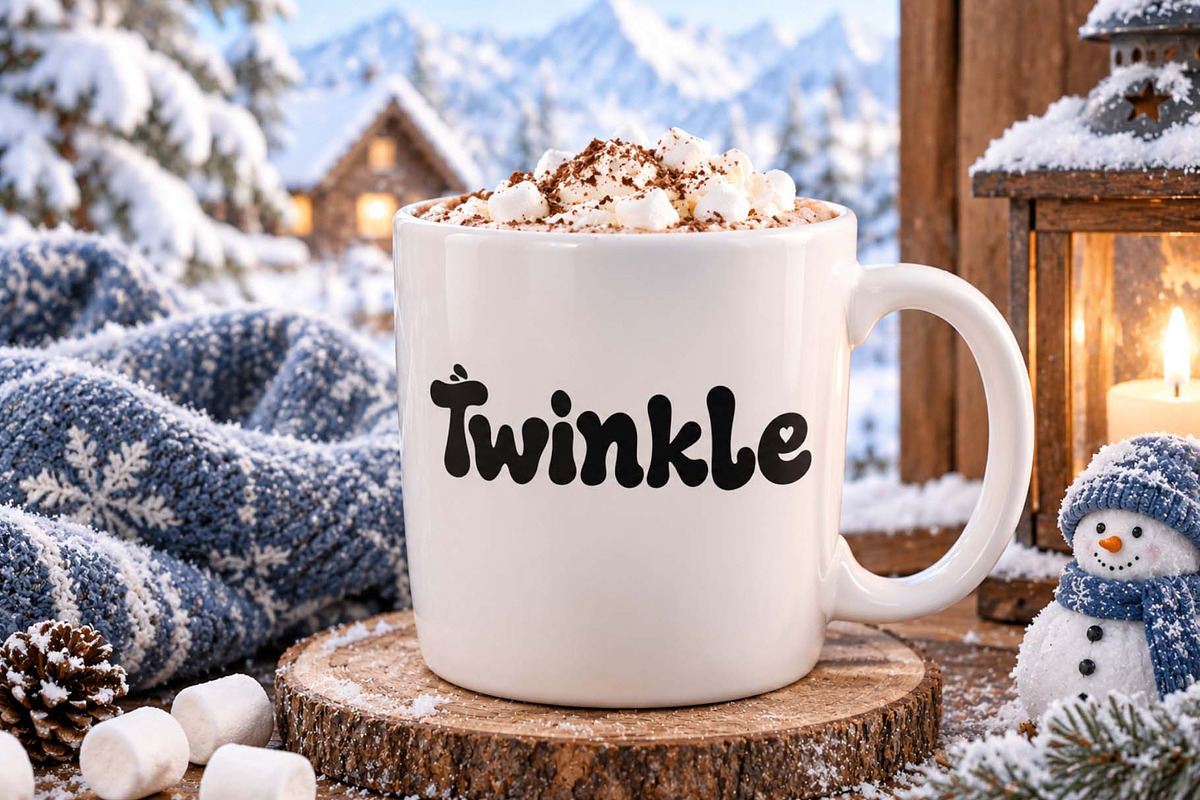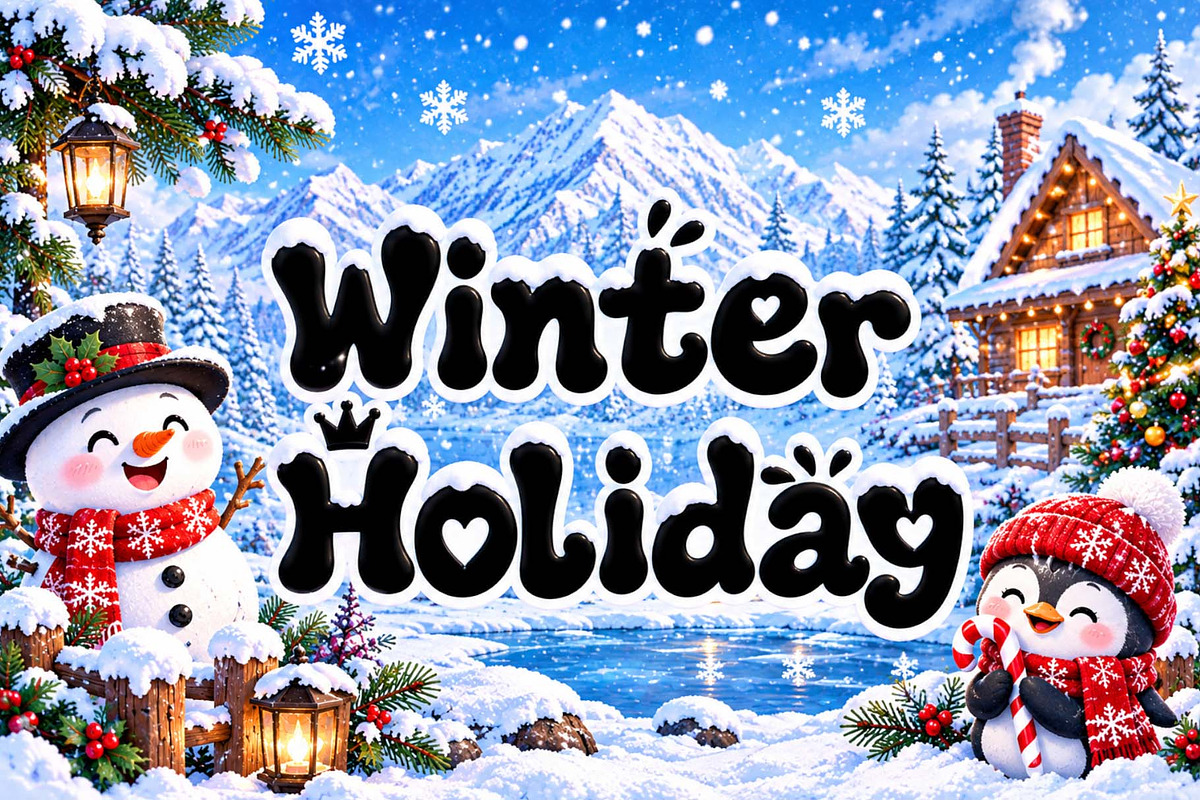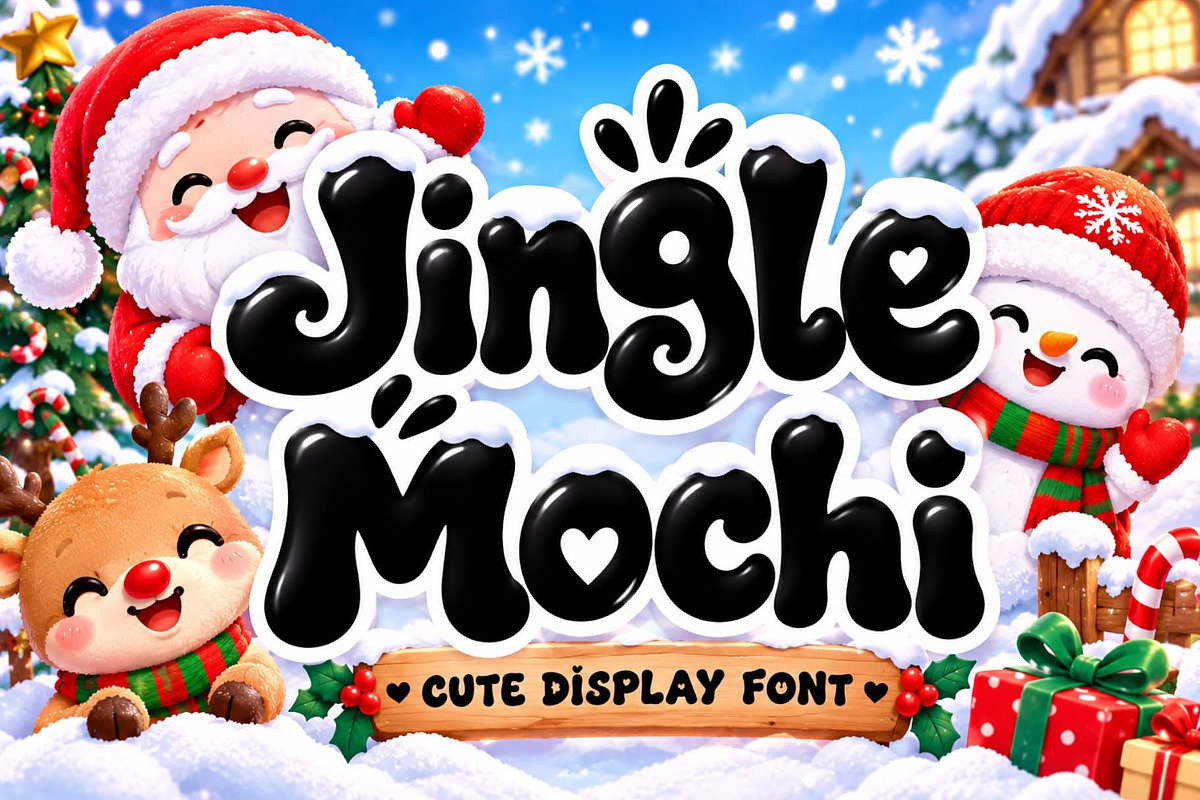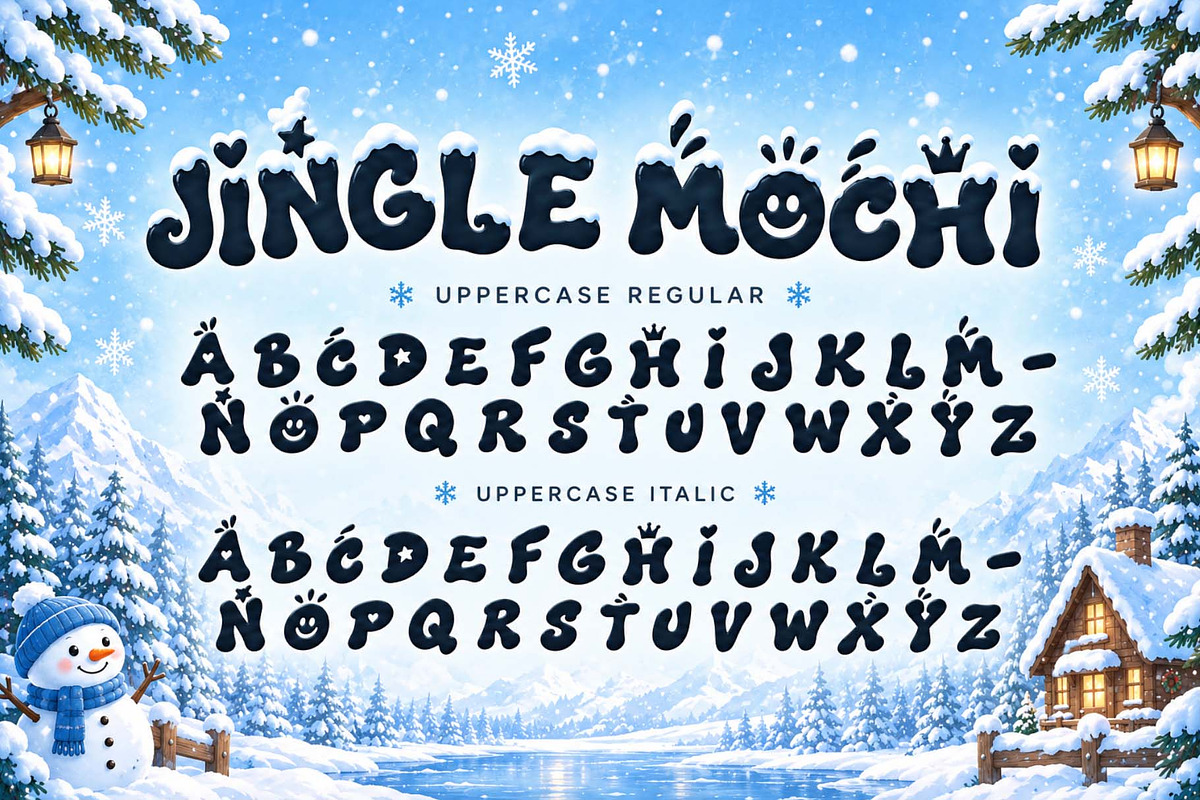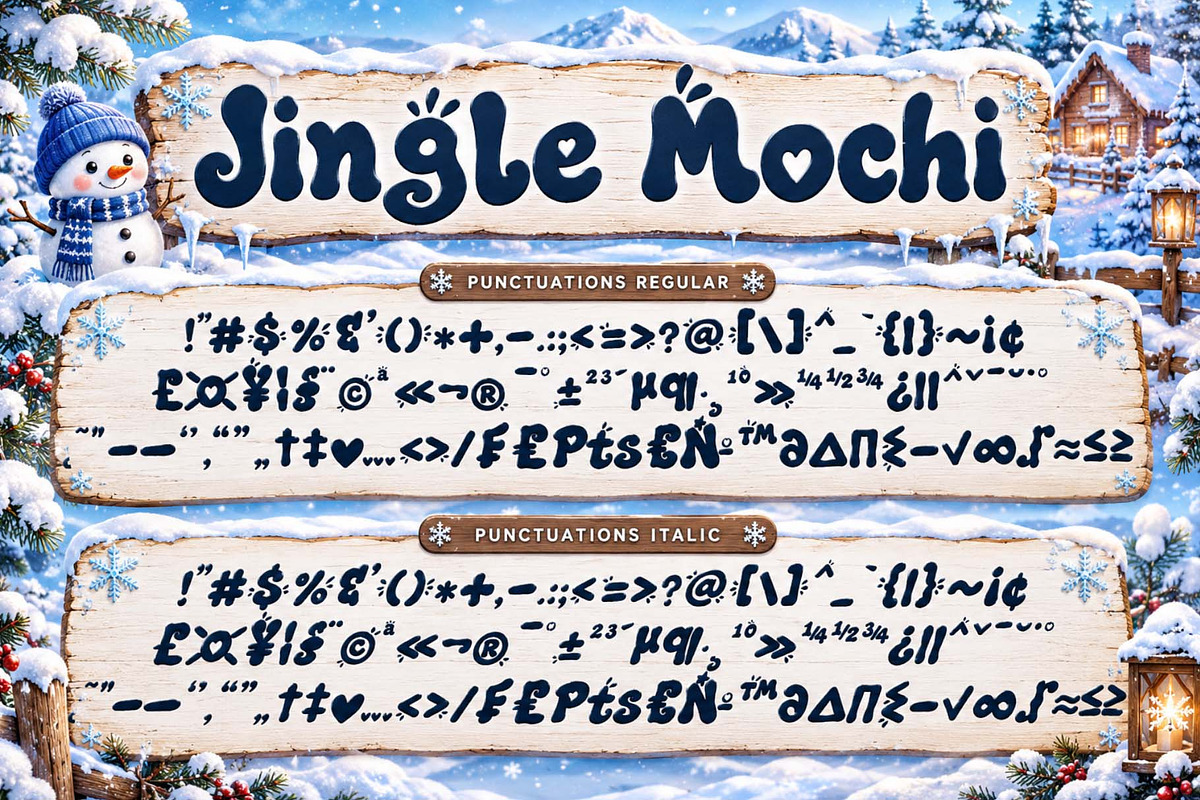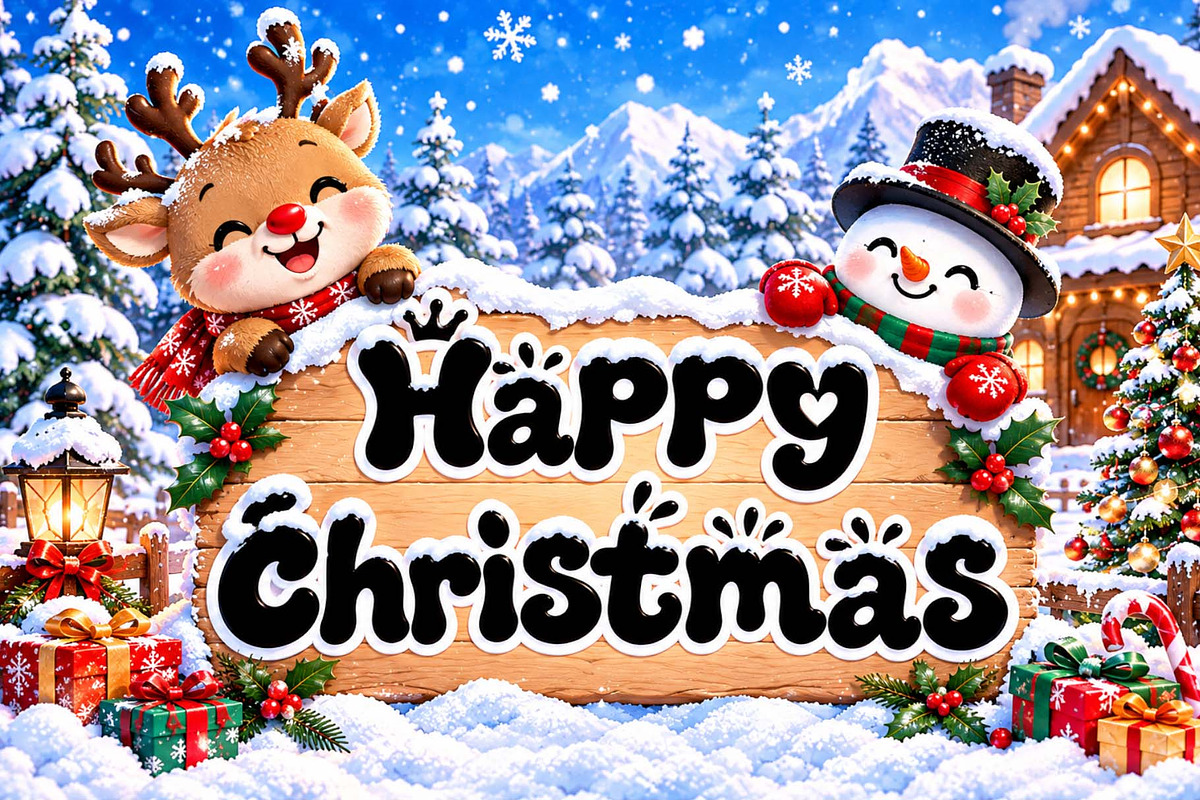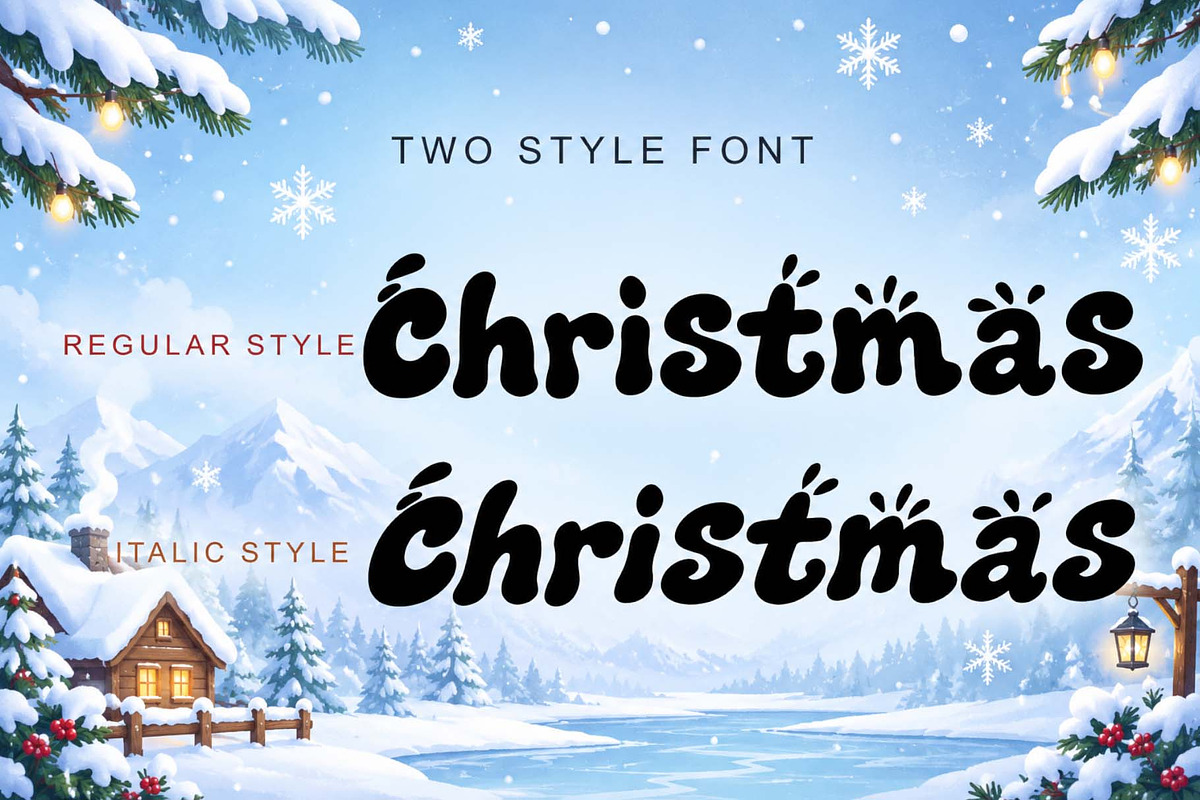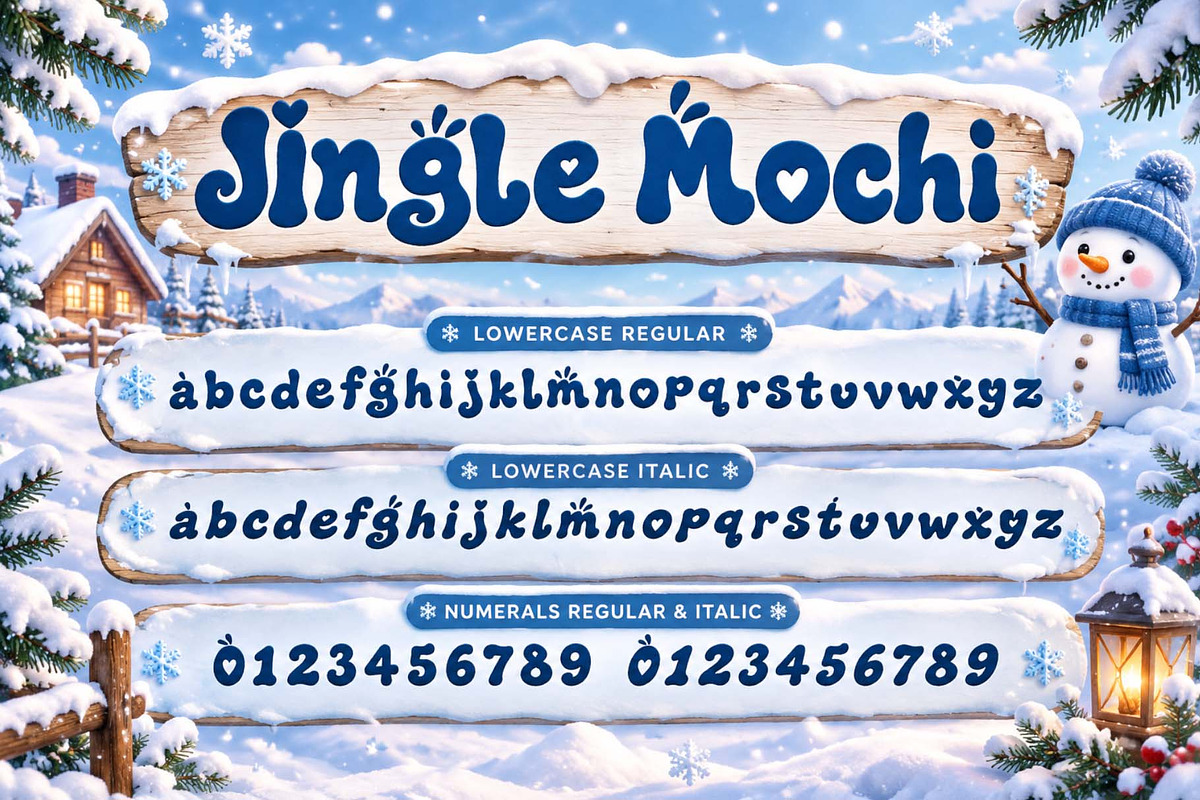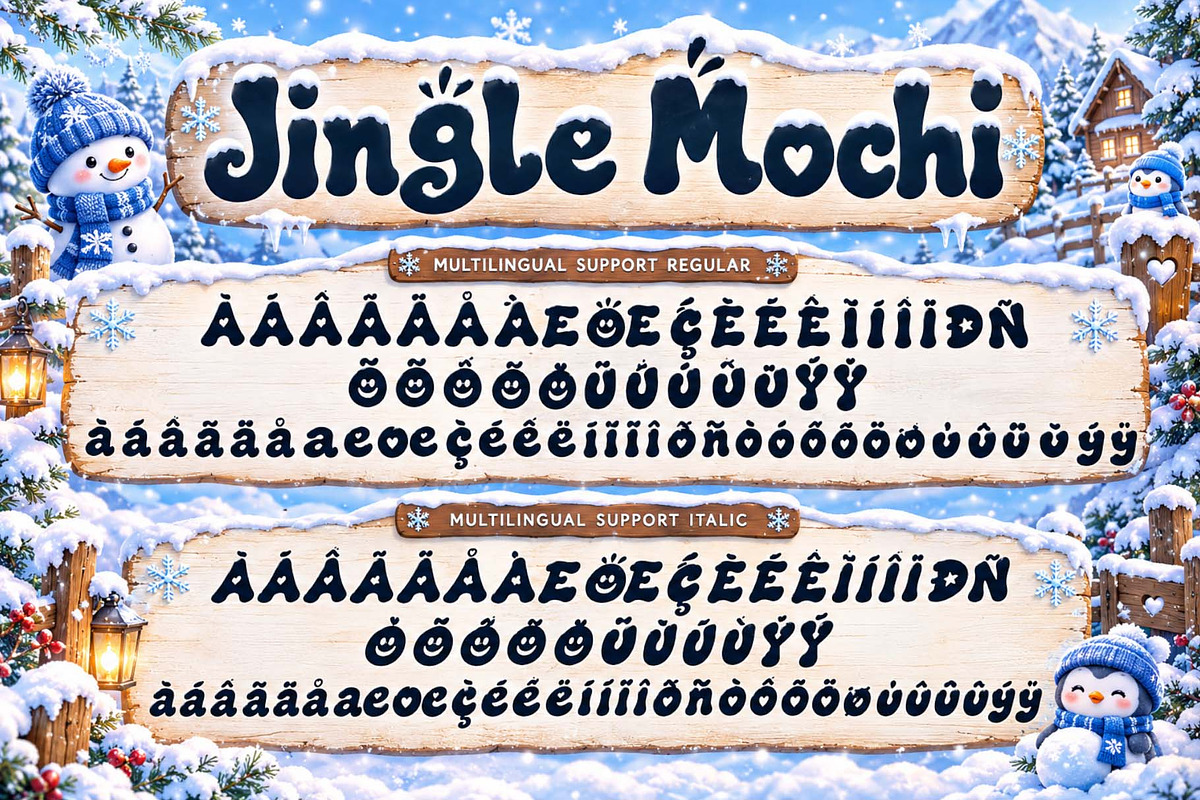
Jingle Mochi
"Jingle Mochi" is a cute and playful display font featuring bold, rounded letterforms. It is adorned with charming heart and splash-like details. The font includes uppercase and lowercase letters, numerals, punctuation marks, and multilingual support. It is perfect for eye-catching designs themed around the holidays, Christmas, and autumn, as well as for children's books and winter greetings.